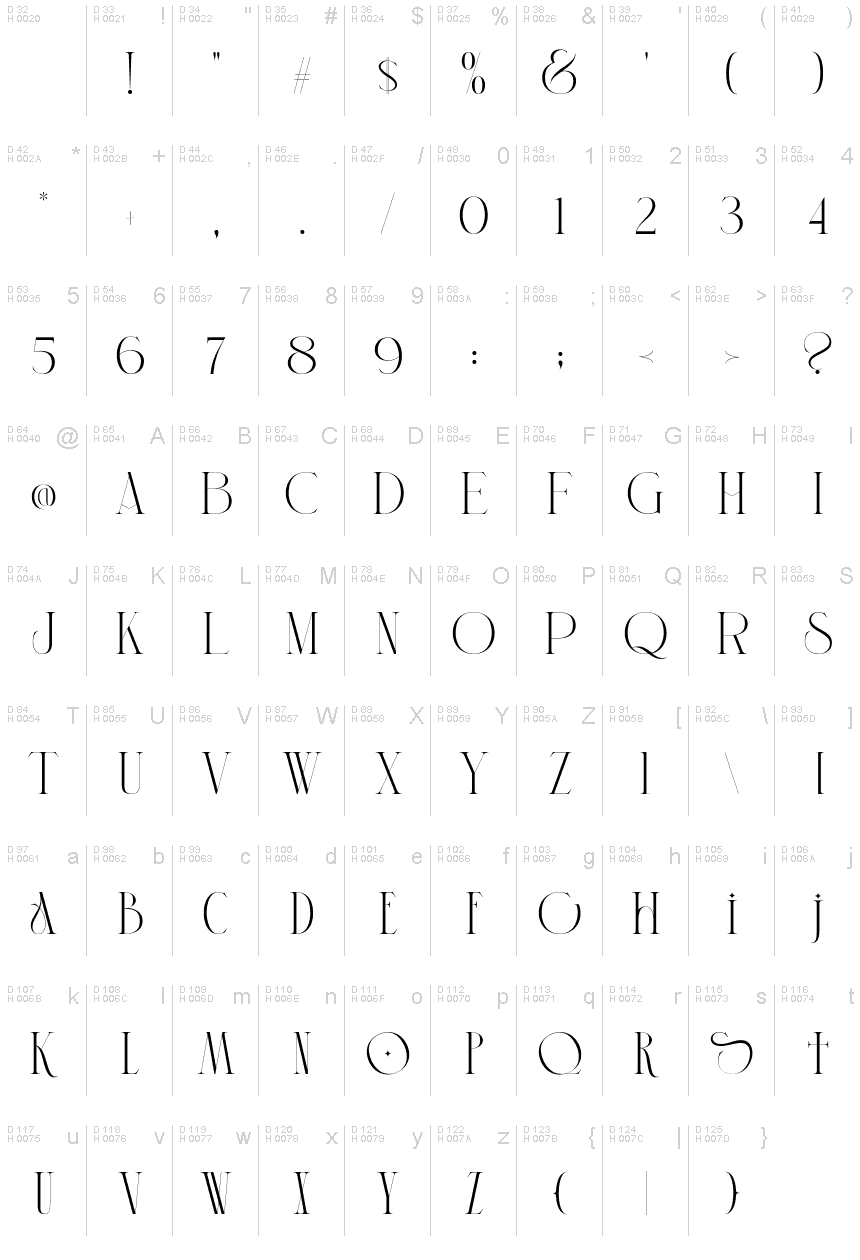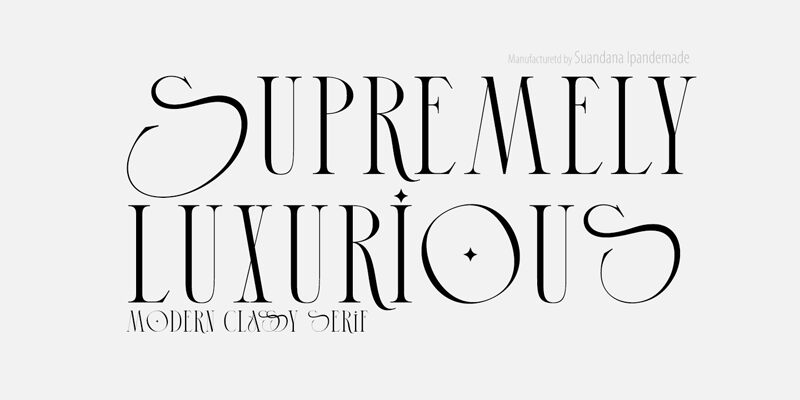
Supremely Luxurious Demo Reg
Supremely Luxurious, designed by TypeClassHeroes, is a font that exudes elegance and sophistication. Its semi-light weight combines gracefully with a condensed width to offer an aesthetic that is both sleek and refined. The font's elongated serifs and delicate curves lend it a classic charm, making it perfect for high-end branding, luxurious packaging designs, and chic editorial content.
The Supremely Luxurious font's clean lines are balanced by subtle intricacies that reveal its character upon closer inspection—a testament to the meticulous craftsmanship of its creators. This typeface not only captivates visually but also promises versatility in application. Whether it's for an upscale invitation or the masthead of a fashion magazine, Supremely Luxurious is poised to infuse any project with a touch of opulence.
With its unique blend of modernity and timelessness, Supremely Luxurious stands out as an impeccable choice for designers seeking to impart their work with an aura of exclusivity and prestige.